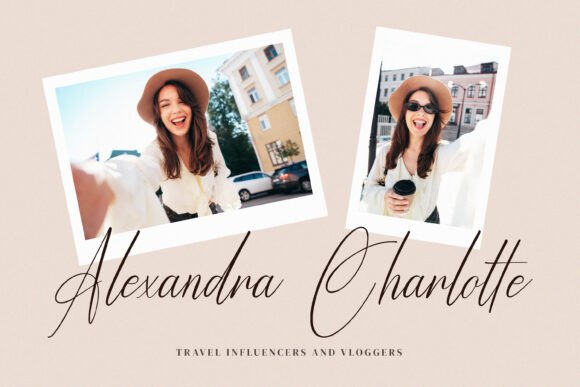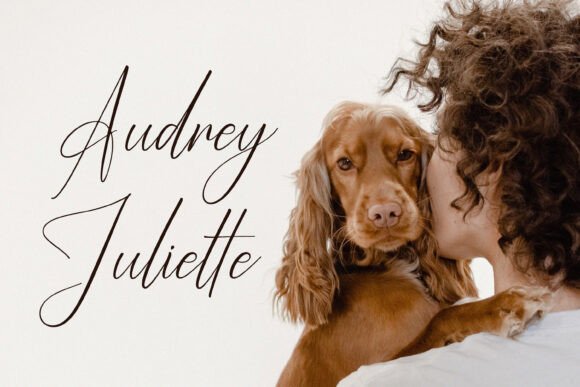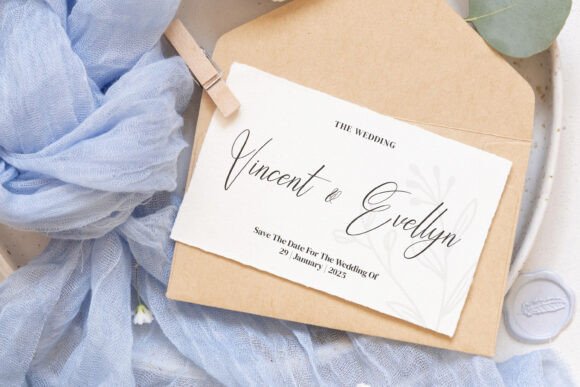
Introduction to Callystin Font
Callystin is a stylish and elegant script font with smooth, flowing letters.
It has a modern look, perfect for creating unique and personal designs Ideal for logos, invitations, and any project that needs a touch of sophistication.
Key Features of Callystin Font
Why Choose Callystin Font?
Callystin Font offers exceptional quality and versatility, making it a valuable addition to your design toolkit. Whether you’re creating for personal projects or commercial use, Callystin Font delivers professional results.